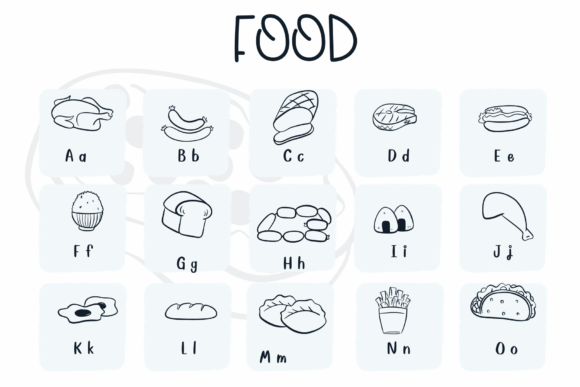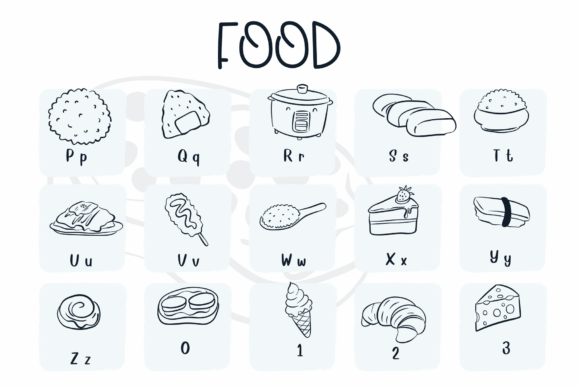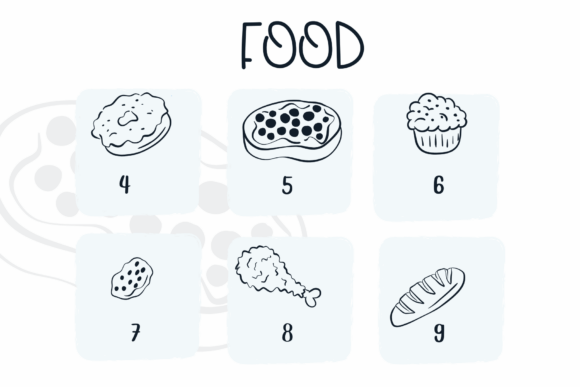
Introduction to Food Font
Add a dash of delicious fun to your designs with the Food Dingbats Font.
This tasty set includes a variety of hand-drawn food iconsβ€”from sushi and croissants to chicken wings and cupcakes Perfect for menus, recipe cards, food blogs, kitchen decor, and more, this font brings flavor and creativity in every glyph.